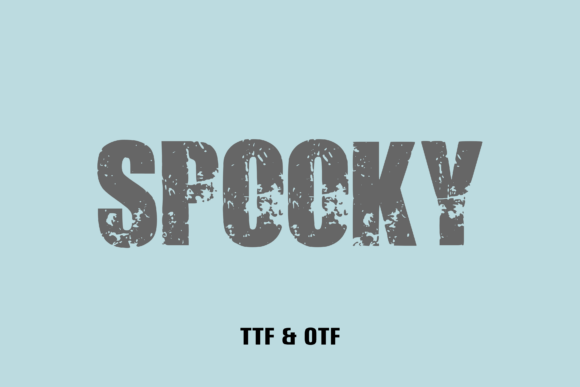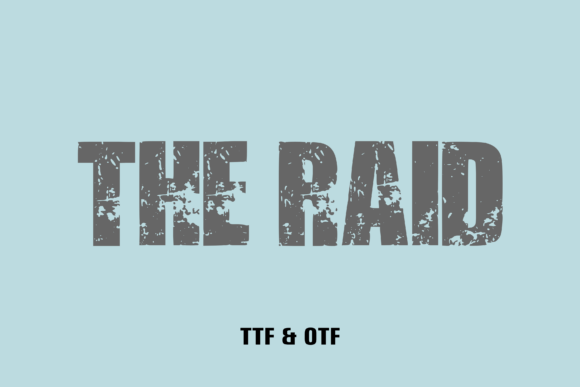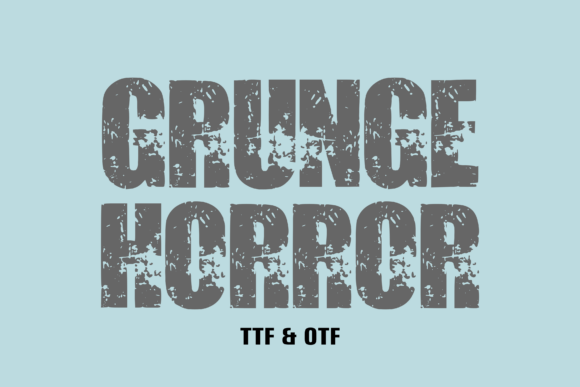
Unleash the Power of Uniqueness: Introducing Grunge Horror Font
In the world of typography, a font can be more than just a means of communication – it can be a statement, an attitude, and a reflection of one’s individuality. For designers and crafters looking to break free from the ordinary and inject their projects with a dose of boldness and nonconformity, Grunge Horror Font is here to revolutionize the way you approach typography.
The Essence of Grunge Horror
Grunge Horror is a sans-serif font that defies conventions with its bold yet uniquely distressed design. Every line, every curve, and every edge of this font is infused with a rough, broken texture that exudes an aura of grit and creepiness. This is not just a font – it’s an experience, a statement that dares to be different and challenges the status quo.
Crafted for Boldness
Grunge Horror is specifically designed for projects that thrive on boldness and individuality. Whether you’re working on a disturbing poster graphic, a bold album cover, or distinctive streetwear branding, this font provides the perfect textural complement to your design. Its unforgiving boldness and individualistic spirit make it an ideal choice for those who refuse to blend in.
Unleash Your Creativity
With Grunge Horror, the possibilities are endless. Imagine creating a poster that grabs attention with its bold, distressed text, or designing a streetwear collection that stands out with its unique typography. This font is not just a tool – it’s a catalyst for creativity, empowering you to push boundaries and challenge the ordinary.
Key Features of Grunge Horror
- Bold and Unique Design: Grunge Horror boasts a sans-serif design that’s both bold and uniquely distressed.
- Broken and Sinister Texture: Every line and curve of this font features a rough, broken texture that adds to its gritty and creepy aura.
- Perfect for Bold Projects: Ideal for projects that require a dose of boldness and nonconformity, such as poster graphics, album covers, and streetwear branding.
- Individualistic Spirit: Grunge Horror embodies the spirit of individuality, making it perfect for designers and crafters who refuse to follow the crowd.
Elevate Your Design Aesthetic
Grunge Horror is more than just a font – it’s a design statement. By incorporating this font into your projects, you’re not just adding text; you’re conveying a message of boldness, individuality, and nonconformity. Whether you’re a designer, crafter, or simply someone who appreciates the power of typography, Grunge Horror has the potential to elevate your design aesthetic and leave a lasting impact.
Convey Your Message with Profound Impact
In a world where communication is key, Grunge Horror Font offers a unique opportunity to convey your message with profound impact. Its bold, distressed design demands attention, ensuring that your message is heard loud and clear. Whether you’re promoting a product, service, or idea, Grunge Horror helps you cut through the noise and make a lasting impression.
Grunge Horror Font is more than just a typeface – it’s a movement, a rebellion against the ordinary and a celebration of individuality. By embracing this bold, sans-serif font, designers and crafters can unlock a world of creative possibilities, pushing the boundaries of typography and design. So why settle for ordinary when you can unleash the power of uniqueness with Grunge Horror Font?